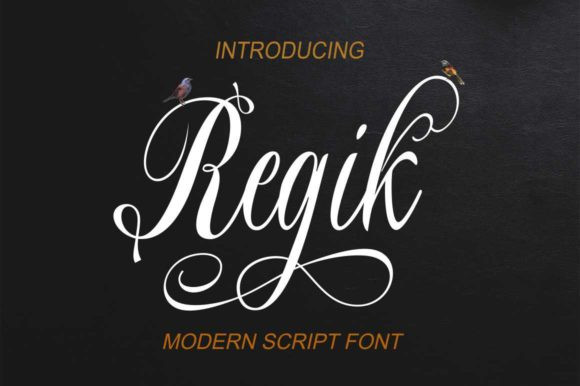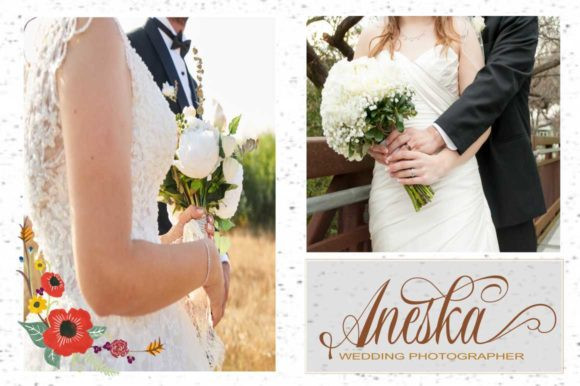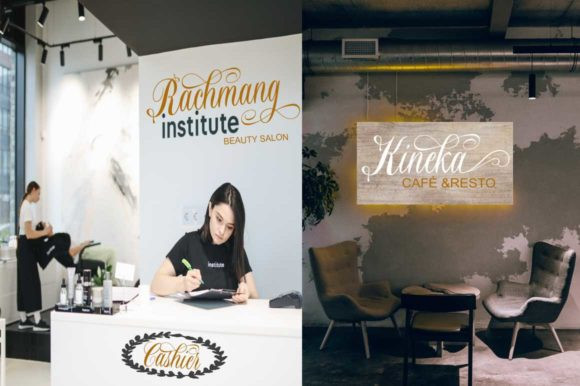
Regik Font
Regik feels equally charming and elegant. This stunning handwritten font is a modern homage to classic calligraphy. It features gorgeous swashes and ligatures that make this script incredibly versatile.